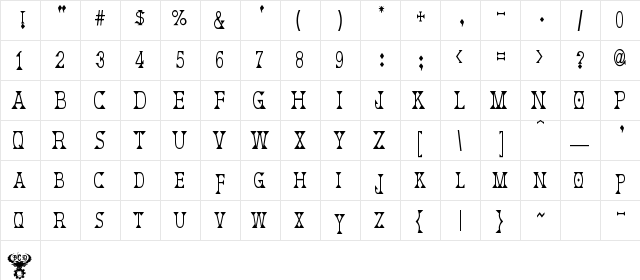
Deborah Condensed Regular
Design Context for Deborah Condensed Typeface
Deborah Condensed takes a measured approach to typography — its balanced proportions and neutral character make it a reliable workhorse for both digital and print work. Its narrow stance lets it pack a punch even in space-constrained designs.
Pro Tip: Pair Deborah Condensed with a font of contrasting weight or personality to build a more expressive typographic hierarchy.